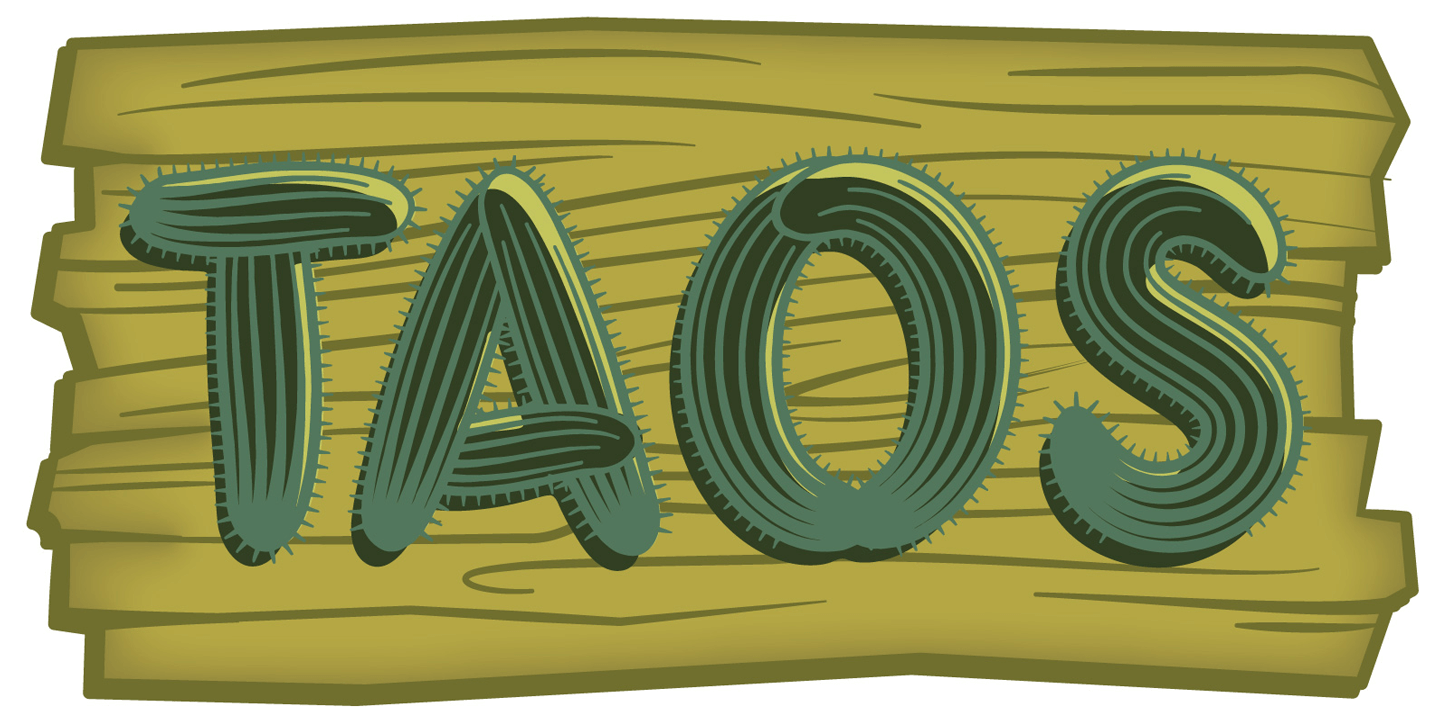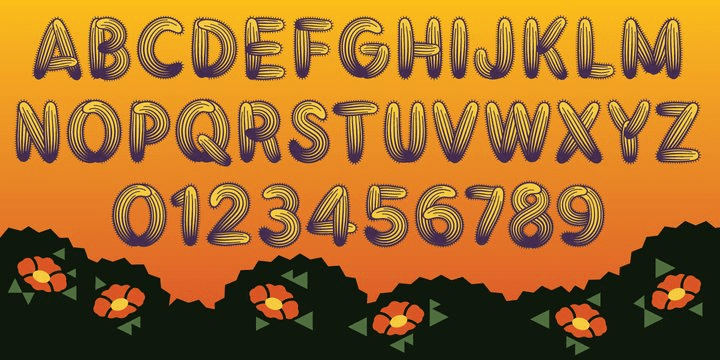
Taos
A bit prickly but with no offense intended, Taos is constructed from imaginary cactus shapes. Its succulent curves and pointy little spikes are reminiscent of the hardy Saguaro, a classic representative of the magnificent midwestern desert.
The Taos suite is a family of two OpenType fonts, an outline and a solid fill version, which may be used separately or combined to produce multi-colored effects.